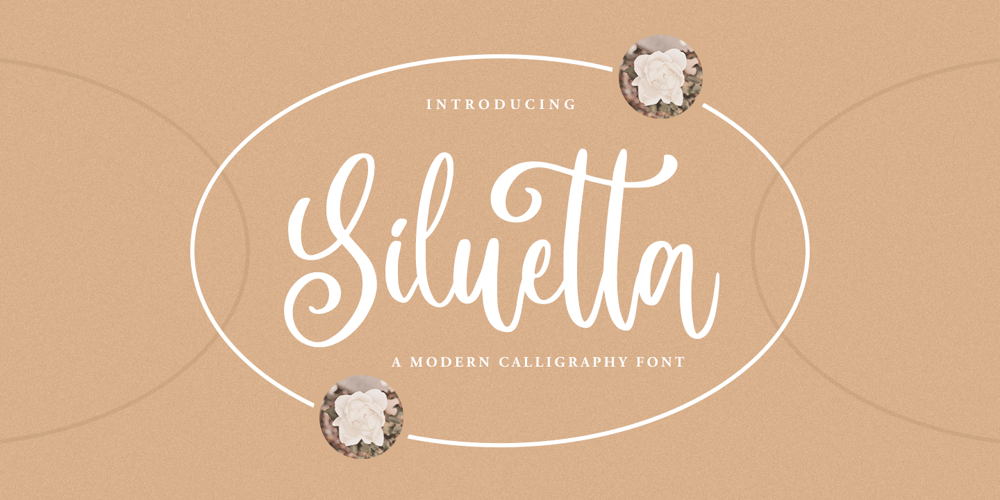
Siluetta Font Family was designed by Novia Himatunnisa and published by Nissa Nana. Siluetta contains 1 styles and family package options. Siluetta is a delicate and elegant handwritten font. Its distinct and well-rounded letters make this font a masterpiece. Fall in love with its incredibly versatile style and use it to create spectacular designs!